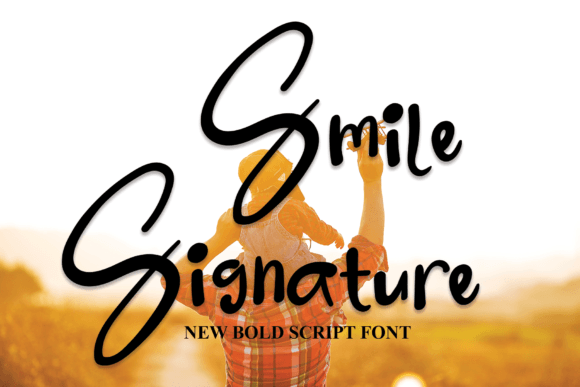
Journey into the world of exquisite penmanship with Smile Signature Font, where charm and elegance dance hand in hand. This meticulously crafted script font, bestowed upon us by the artistic hands of william jhordy, embodies the spirit of Christmas cheer, making it the perfect companion for your festive creations.
With its delicate strokes and carefree flow, Smile Signature Font captures the essence of handwritten notes, evoking a sense of warmth and nostalgia. This font is not merely a collection of characters; it's an experience that transports you to a world of heartfelt emotions and cherished memories.
Whether you're designing heartfelt greeting cards, crafting personalized invitations, or adding a touch of whimsy to your digital projects, Smile Signature Font stands ready to elevate your creations to new heights of beauty and charm. Its versatility extends beyond the realm of Christmas, making it an ideal choice for any occasion that calls for a touch of elegance and sophistication.
Imagine the joy of your loved ones as they receive a card penned in the graceful script of Smile Signature Font, their hearts filled with warmth as they decipher your heartfelt message. Witness the smiles that blossom as they cherish this tangible expression of your affection.
With Smile Signature Font as your creative ally, you possess the power to transform ordinary words into enchanting works of art. Let your imagination soar as you explore the boundless possibilities that await you, knowing that every letter you type will carry a touch of magic.